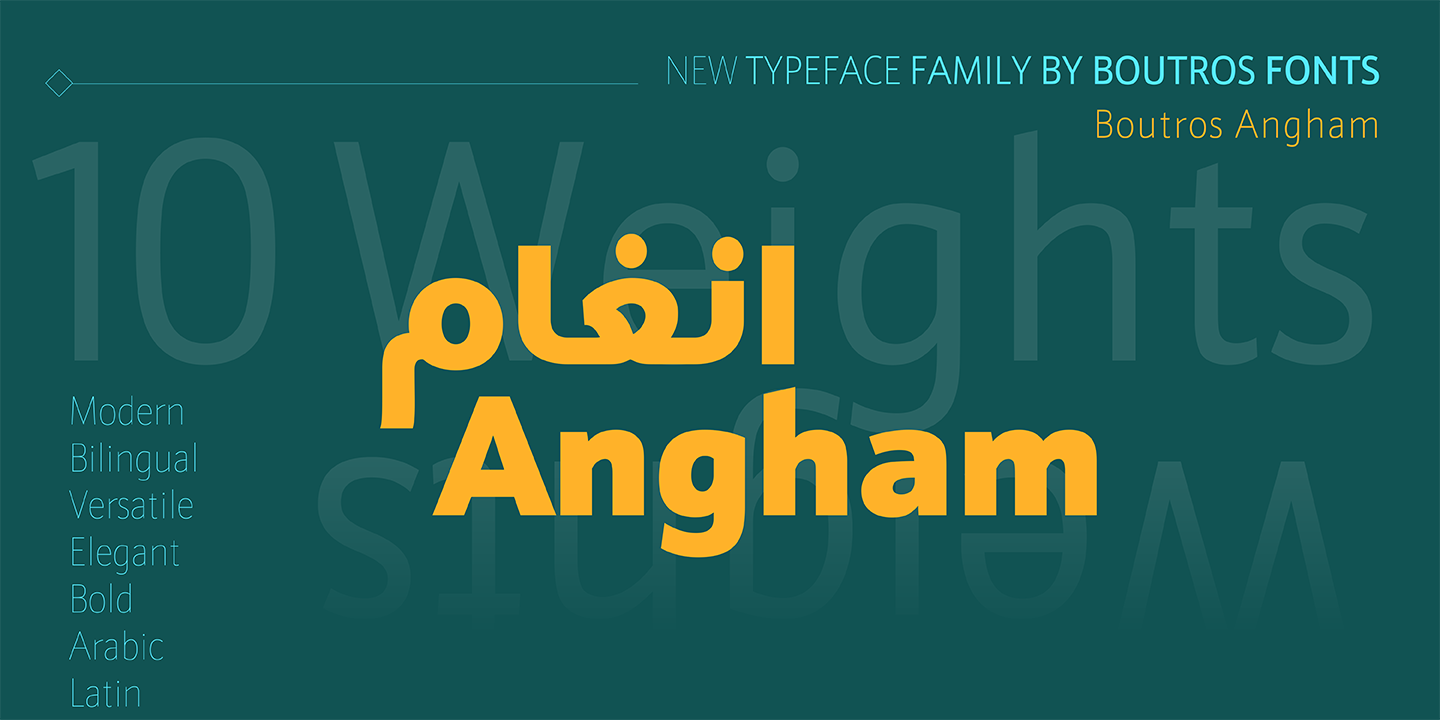
Boutros Angham Font Free Download – A sophisticated Arabic-Latin hybrid typeface that bridges cultural design aesthetics with modern elegance. Commercial projects require licensing, but free personal testing is available.
Where to Use Boutros Angham Font?
This unique bilingual font excels in:
• Middle Eastern brand identities
• Luxury Arabic-English packaging
• Bilingual publications & magazines
• Cultural event promotions
• High-end hospitality branding
• Government & diplomatic materials
Why Boutros Angham Font is Groundbreaking
This font revolutionizes Arabic-Latin typography with:
→ Perfect visual harmony between scripts
→ Authentic Arabic calligraphic influences
→ Contemporary Latin character design
→ Balanced weight distribution across both alphabets
→ Special ligatures for fluid connections
Boutros Angham Font Features
Includes:
Regular and Bold weights
Complete Arabic character set
Extended Latin support
Stylistic alternates for both scripts
Special bilingual ligatures
✓ 1,200+ meticulously crafted glyphs
✓ Advanced OpenType layout features
✓ Perfect for print and digital media
✓ Includes rare Arabic typographic flourishes